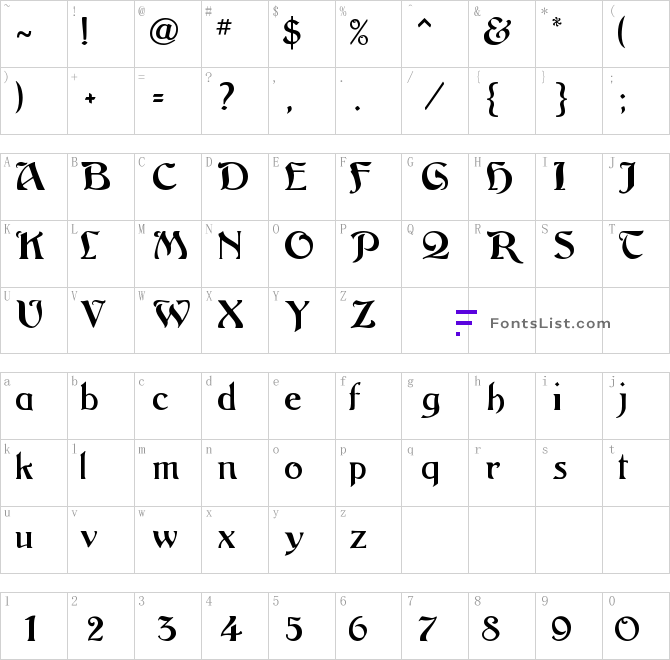
- Font Name:Argos
Argos-Regular.ttf is a very beautiful artistic font, Argos-Regular.ttf is widely used in the design and printing of various books and pictures,Argos-Regular.ttf has a strong visual impact,Argos-Regular.ttf is a commonly used font in newspapers, magazines and books, and is used in posters, e-commerce Poster design, store design, logo design, font design and other fields.Argos-Regular.